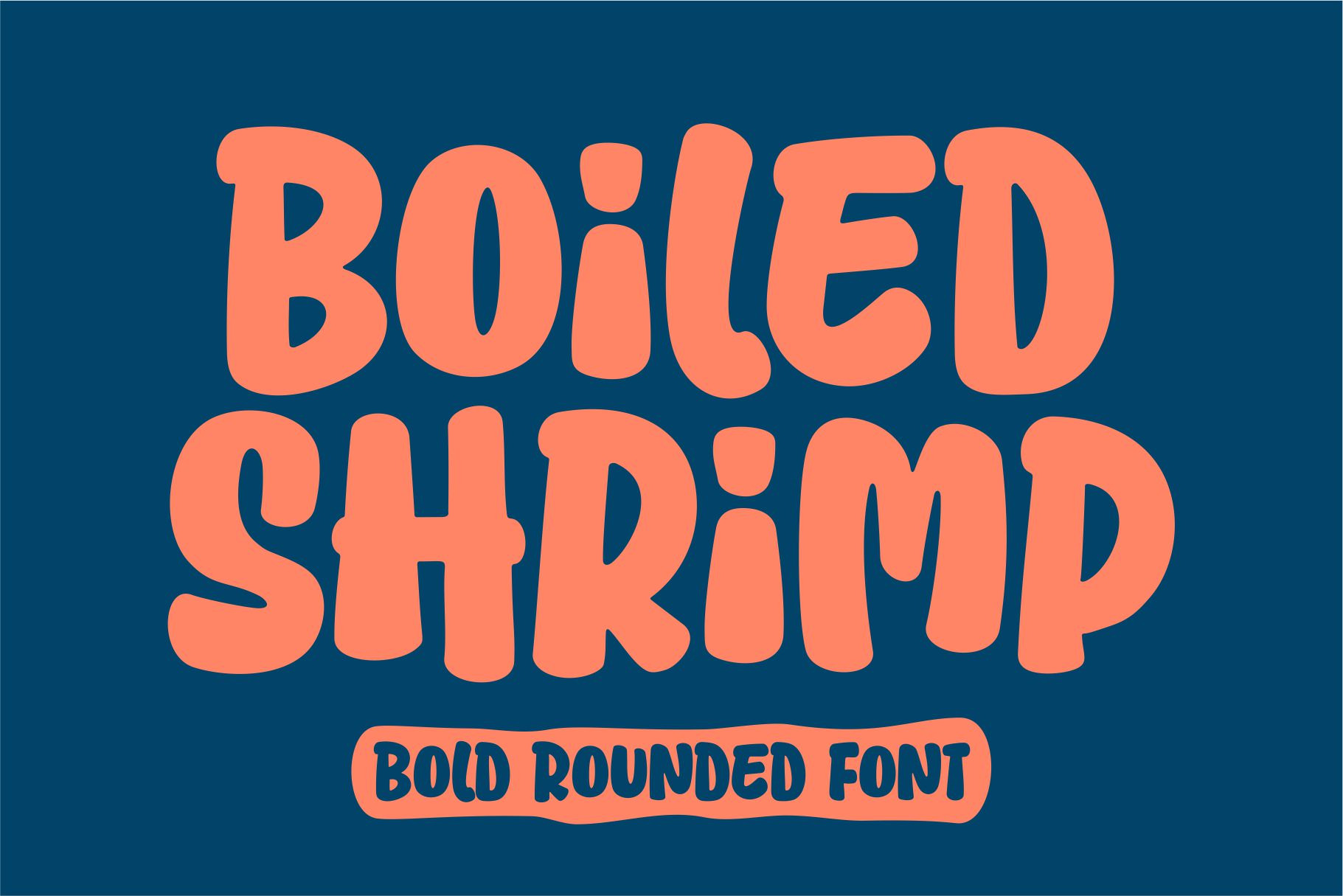
Boiled Shrimp - Bold Rounded font
Boiled Shrimp! This is a handwritten font I created for unique characters. It's slightly rounded and very beautiful. It includes alternate letters for uppercase and lowercase letters Aa-Zz.
It looks great for logo, headline, invitation, label, magazine, greeting / wedding card, packaging, fashion, make up, stationery, novel or any type of advertising purpose.